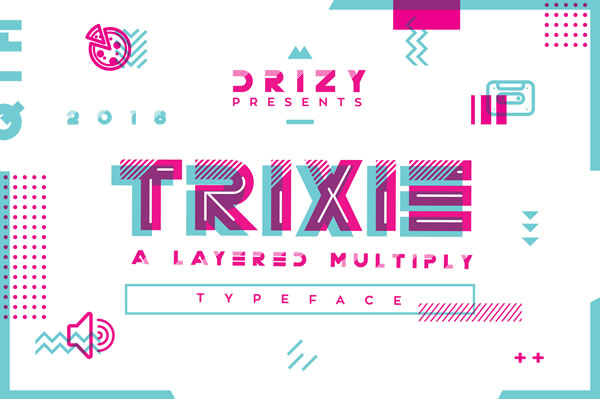
Step into the world of typography enchantment with Trixie Font, a captivating layered typeface that's bursting with personality. This remarkable font creation by Drizy Studio isn't just a font, it's a gateway to unleashing creativity and leaving an indelible mark on your designs.
Experience the playful nature of Trixie as you explore its four distinct variations: Trixie Regular, Trixie Complete, Trixie Line, and Trixie Shadow. Each variation dances with its own unique charm, allowing you to mix and match, layer and blend, to create a symphony of typographic delight.
Trixie Regular captivates with its clean lines and playful curves, while Trixie Complete takes it up a notch with a touch of boldness and sophistication. Trixie Line introduces an artistic flair with its delicate strokes, and Trixie Shadow adds a touch of intrigue with its subtle shadows.
Indulge in the versatility of Trixie Font, as it effortlessly adapts to a myriad of design projects. Create eye-catching logos, captivating posters, unforgettable branding, and enchanting invitations. It's the perfect choice for adding a dash of whimsy to your social media posts, packaging designs, and website layouts.
Trixie Font is more than just a font; it's a catalyst for creative expression, a tool that empowers you to craft designs that speak volumes. Dive into a world of infinite possibilities and let Trixie take your designs to new heights.